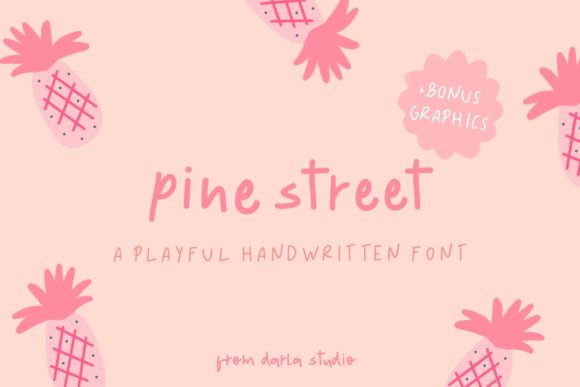
Introducing Pine Street Font, the playful and enchanting script font that will infuse your creative projects with a touch of handwritten charm. Perfect for modern websites, this font embodies the essence of contemporary design with its whimsical yet sophisticated strokes.
With Pine Street Font, you'll have the power to craft eye-catching quotes that captivate your audience, design logos that exude personality, and create branding materials that make a lasting impression. Elevate your blogs with a touch of elegance, add warmth to greeting cards, and make your social media posts stand out from the crowd.
Whether you're using it in Cricut designs or adding a handwritten flair to your digital planner, Pine Street Font is the perfect companion for adding a personal and stylish touch to any creative endeavor. And to sweeten the deal, we've included a bonus set of graphics that will ignite your imagination and help you make your projects truly pop.
So, embark on a creative journey with Pine Street Font, the font that will transform your words into works of art and leave an unforgettable mark on your audience's hearts and minds. Discover the beauty of handwritten fonts and let your creativity soar with Pine Street Font!